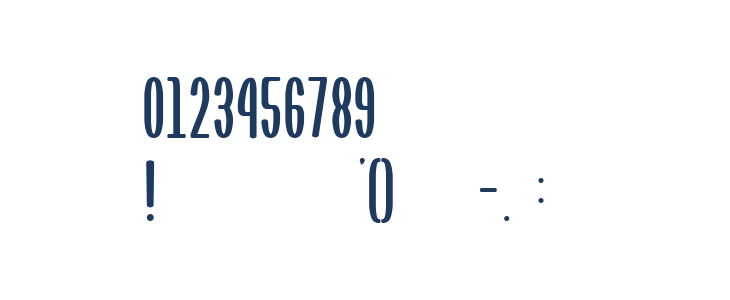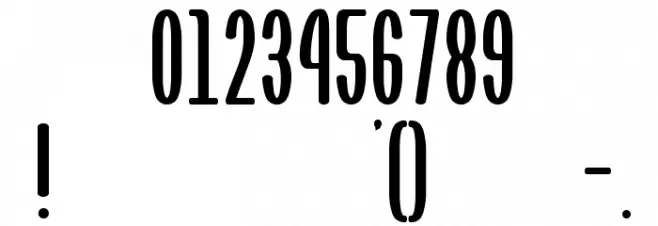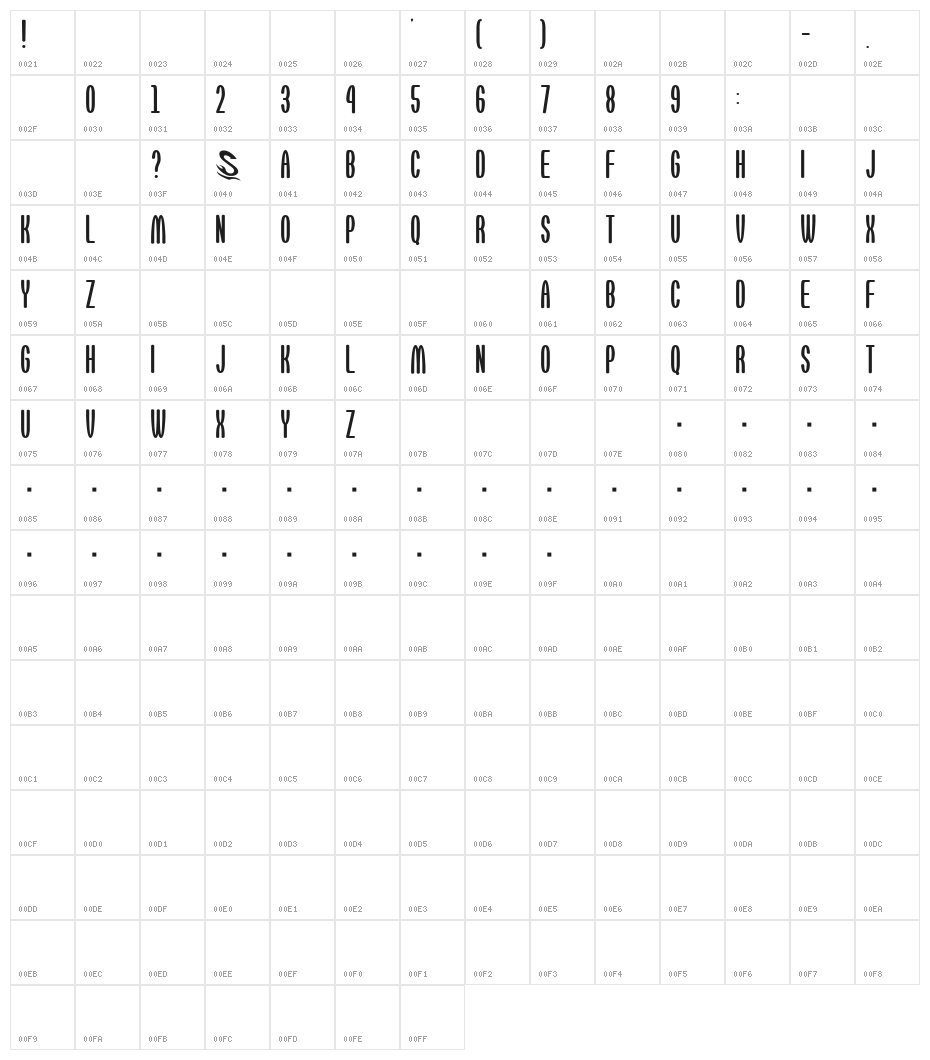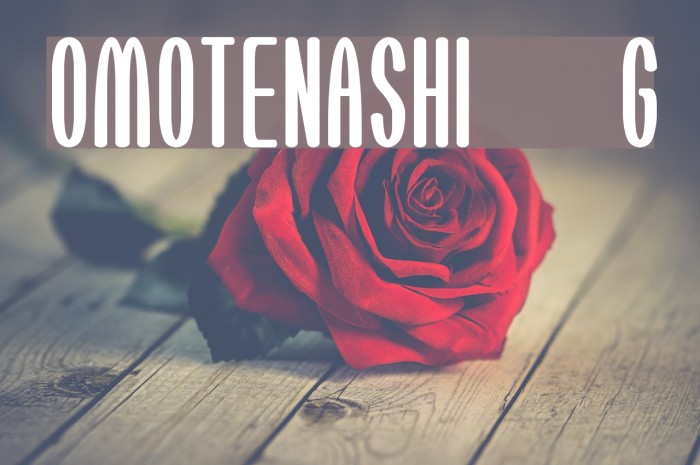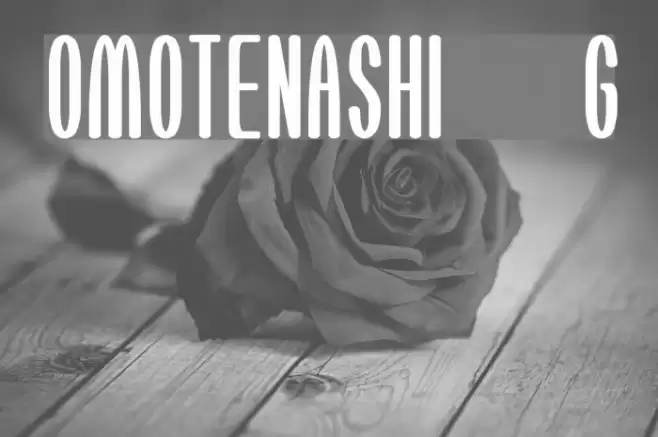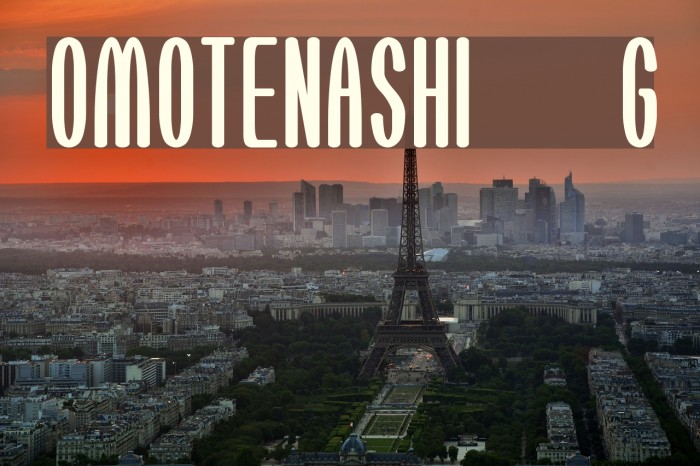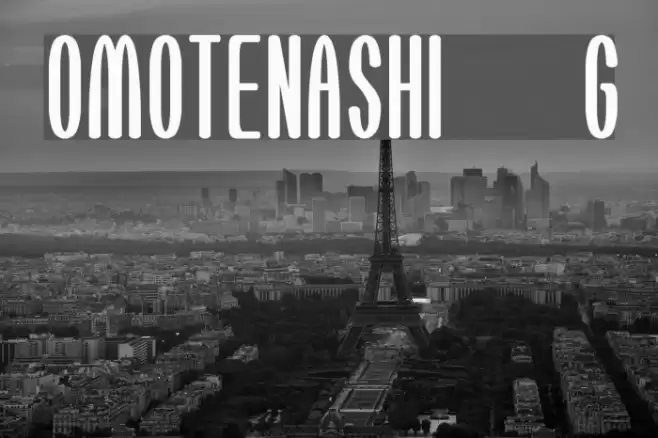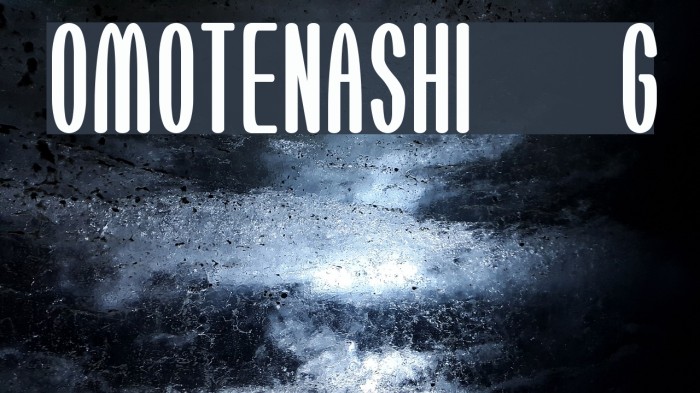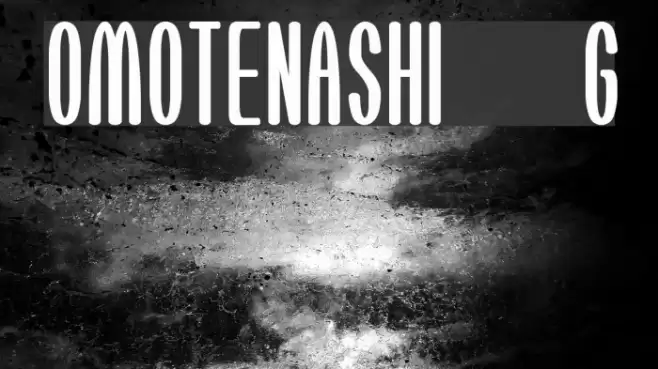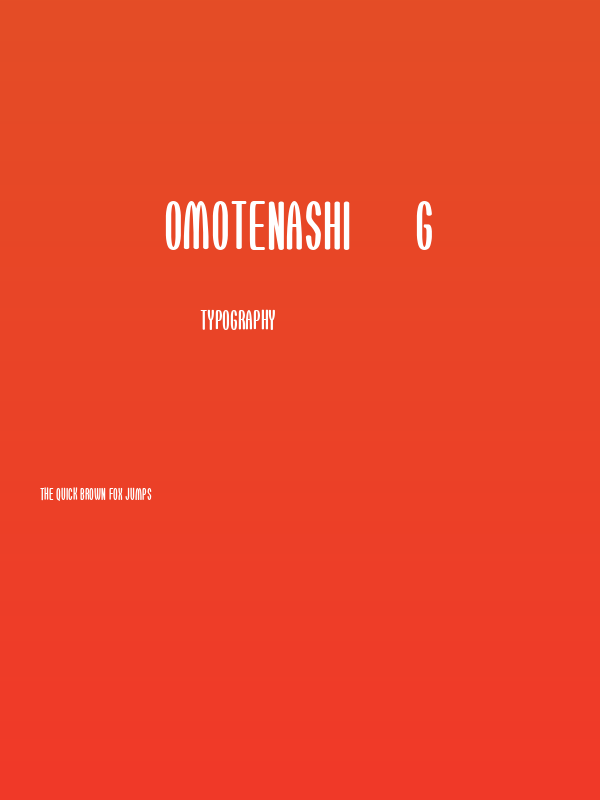
OMOTENASHI__G Font
OMOTENASHI__G Description
This font features a bold and rounded style with a distinctively modern and playful appearance. The characters are tall and narrow, with a consistent stroke width that gives it a clean and uniform look. The uppercase letters are particularly elongated, while the lowercase letters maintain a similar height, creating a cohesive visual flow. The numbers are designed to match the overall style, ensuring readability and aesthetic appeal. Special characters are included, maintaining the same rounded and bold characteristics. This font is ideal for projects that require a contemporary and engaging typeface.
| Proposed Projects | Ideal for branding, posters, headlines, and modern design projects. |